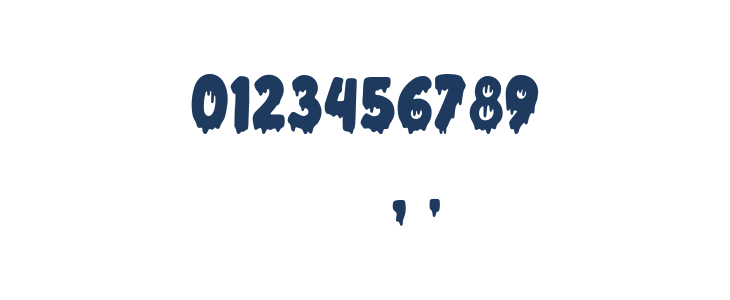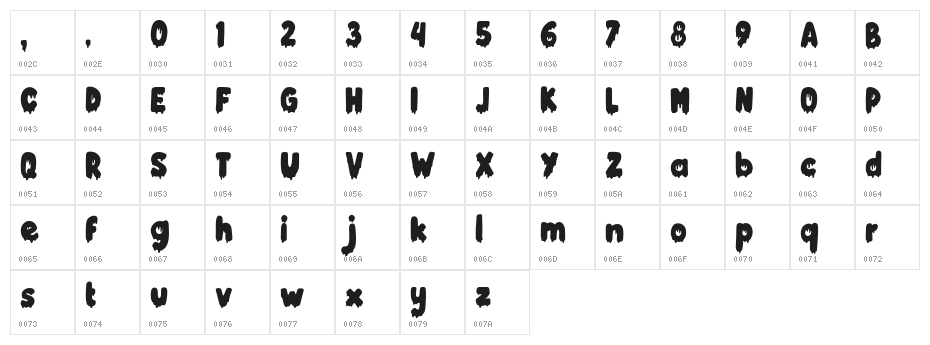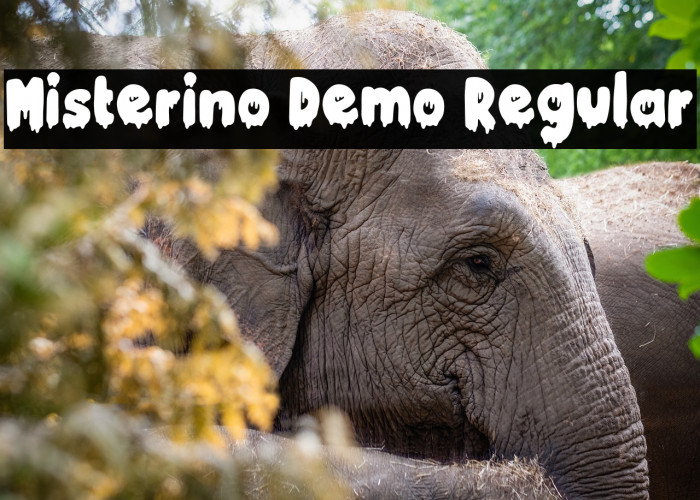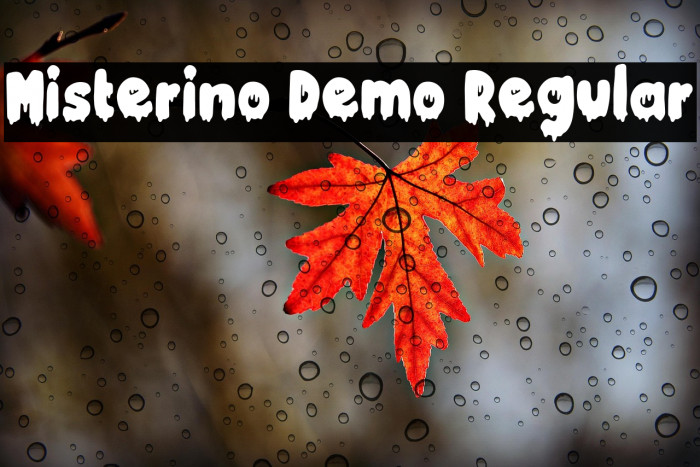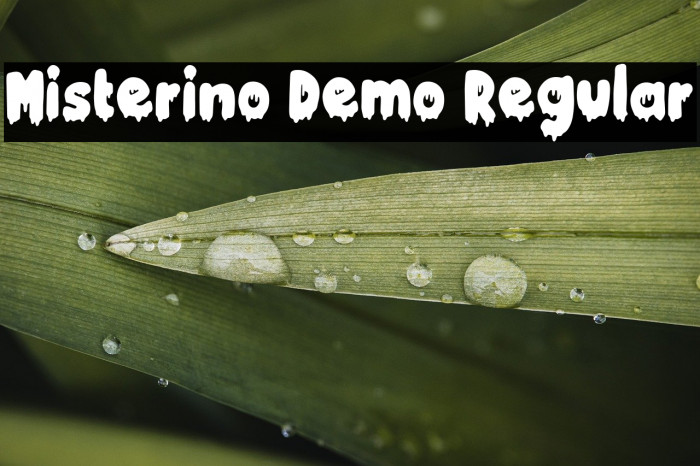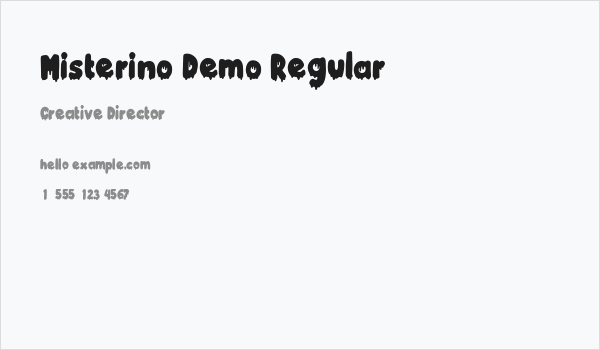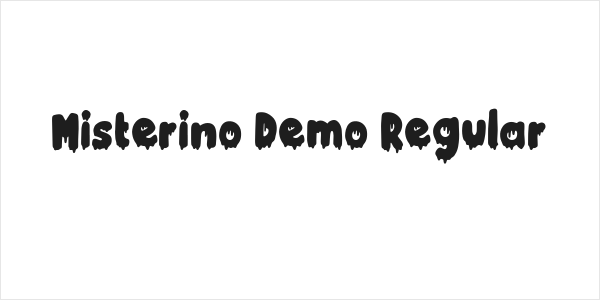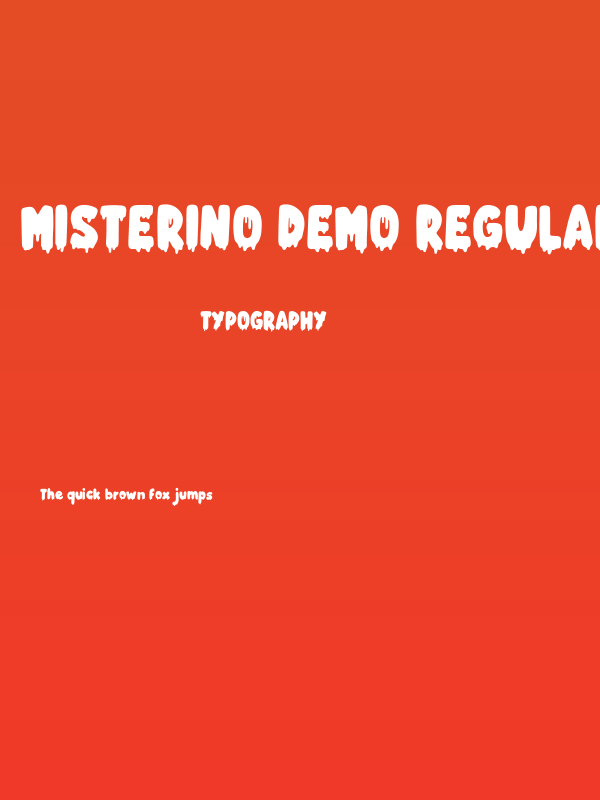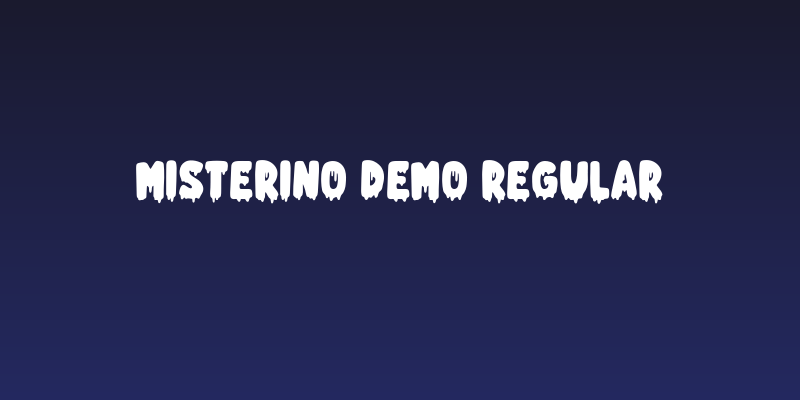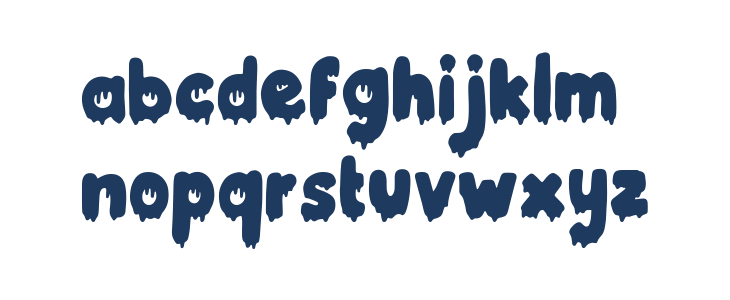
Misterino Demo Regular Font
Misterino Demo Regular Description
This font features a playful and spooky design, with characters that appear to be dripping or melting. The bold and rounded letters have a unique, irregular shape that gives them a dynamic and eye-catching appearance. The uppercase and lowercase letters maintain a consistent style, with the lowercase being slightly more compact. Numbers and special characters follow the same dripping motif, ensuring a cohesive look across all glyphs. This font is perfect for creating a fun, eerie atmosphere in designs.
| Proposed Projects | Ideal for Halloween-themed projects, children's book covers, party invitations, and playful branding. |